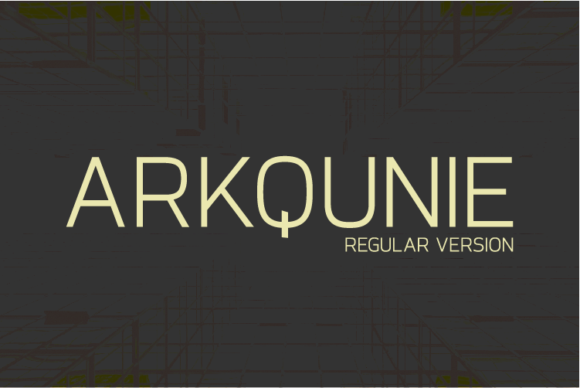
The Ultimate Font for Creative Projects: A Deep Dive into Arkqunie
I’ll never forget the time I was working on a project for a client who needed a unique and eye-catching font. I spent hours scouring the internet for the perfect typeface, but nothing seemed quite right. That was until I stumbled upon Arkqunie, a casual and geometric sans serif font that has become a staple in my design toolkit. In this article, I’ll share my experience with Arkqunie, its features, and how to get the most out of this versatile font.
What Makes Arkqunie Special?
Arkqunie is a geometric sans serif typeface with a casual vibe that’s perfect for a wide range of creative projects. Its special features, tucked away in every corner of each letter, make it an excellent choice for headlines, postcards, business cards, logos, letterheads, magazines, posters, and more!
My Honest Review of Arkqunie
So, what do I love about Arkqunie? Here are a few things that make it stand out:
• ✨ Maximum flexibility: Arkqunie has a range of styles and features that make it adaptable to different design needs.
• ✅ Ease of use: The font is easy to read and works well in various contexts, from digital to print.
• 🎨 Creative freedom: Arkqunie’s unique features and stylistic alternates give designers the freedom to experiment and create something truly unique.
Of course, no font is perfect, and Arkqunie has a few small quirks:
• 🤔 Limited language support: While Arkqunie covers the basics, it may not support every language or character set.
The Story Behind Arkqunie
Arkqunie was designed with the goal of creating a flexible and creative font that could be used in a variety of contexts. The designer wanted to craft a typeface that was both geometric and casual, with a unique personality that would stand out in any design.
Font Name Arkqunie Font
Author Nan Design
Here are some frequently asked questions about Arkqunie:
Q: What type of projects is Arkqunie best suited for?
A: Arkqunie is perfect for headlines, postcards, business cards, logos, letterheads, magazines, posters, and more!
Q: Does Arkqunie support OpenType features?
A: Yes, Arkqunie supports OpenType features, including stylistic alternates, glyphs, and more.
Q: Is Arkqunie suitable for body text?
A: While Arkqunie is primarily designed for headlines and titles, it can be used for body text in certain contexts. However, it’s recommended to use a font specifically designed for body text for optimal readability.